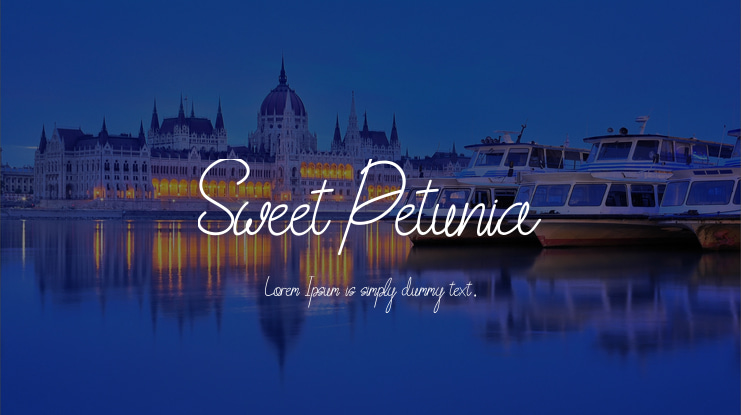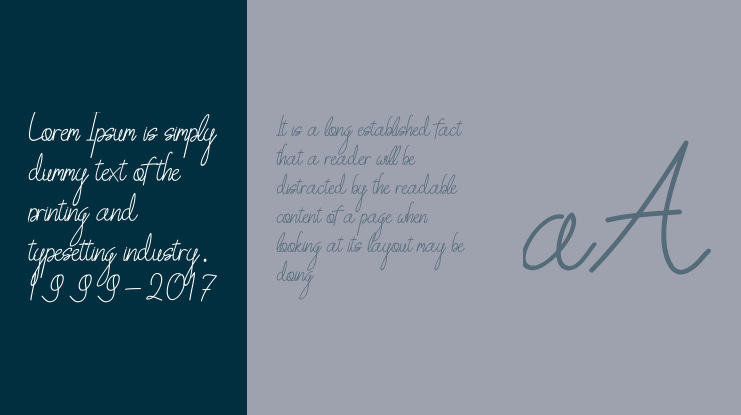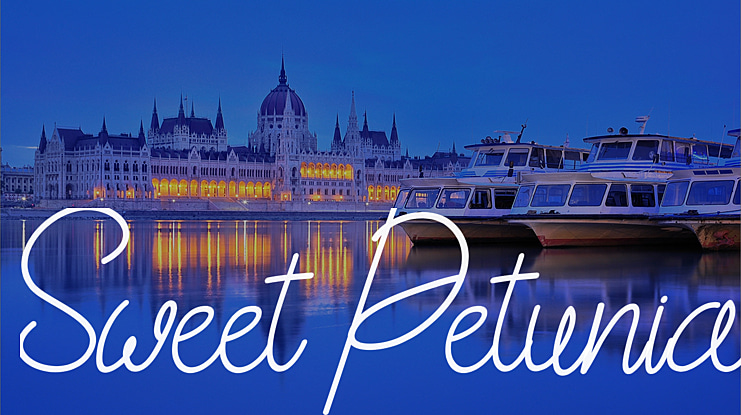
Sweet Petunia Font
Rifky Naufaldy
Introducing Sweet Petunia, its a casual styled handcrafted script font that could be applied to any kind of design you desired.
Sweet Petunia is really great font for logo, blog/web headline, clothing, invitation, poster, cafe/resto sign, and many others.